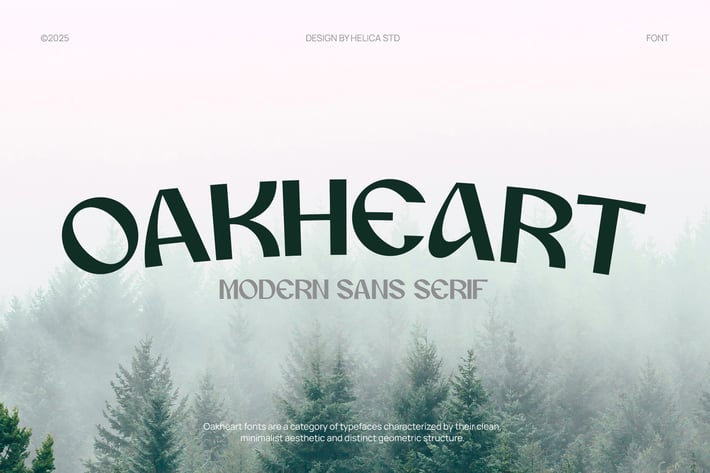
Oakheart Modern Display Font Font
Oakheart is a modern display font designed to captivate attention with its bold yet refined style. Featuring uppercase and lowercase letters, ligatures, and alternates, this font brings a perfect blend of creativity and functionality. Whether for posters, logos, or contemporary web design, Oakheart stands out effortlessly.
Ligatures & Alternate
Numeral & Punctuations